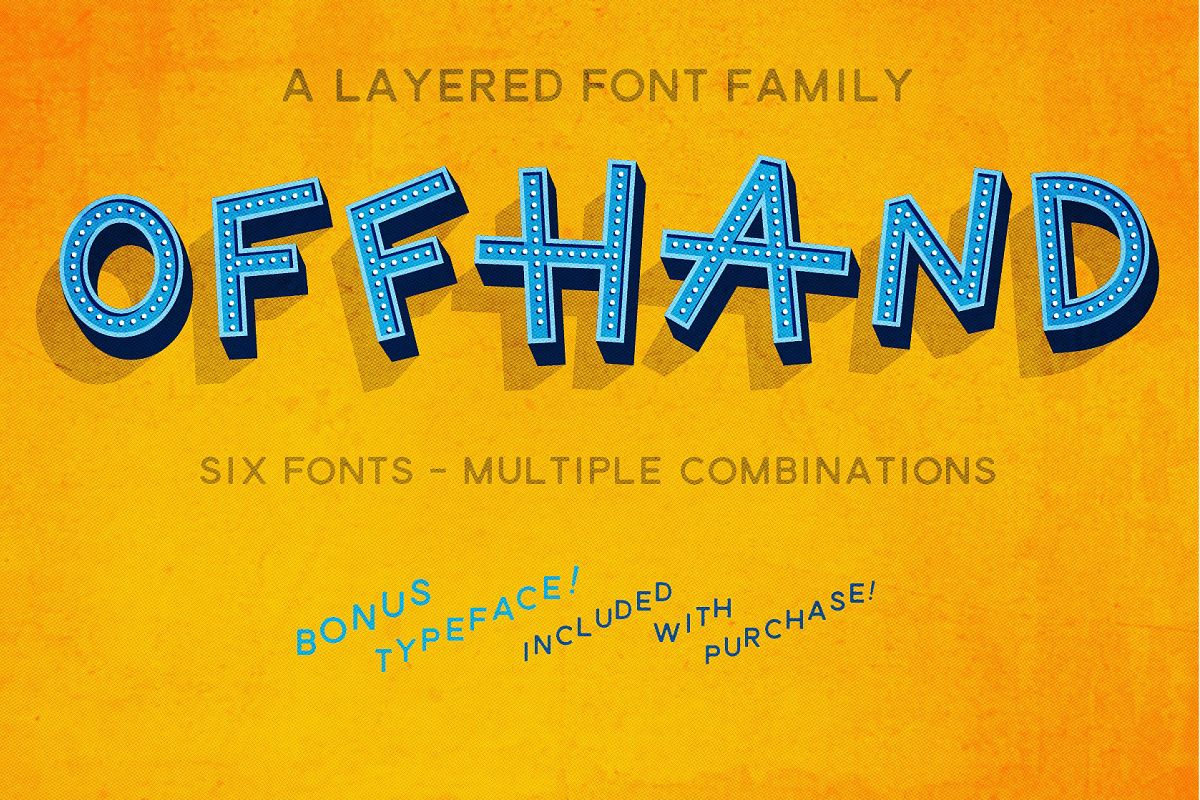
Offhand
Offhand is a new 3D layer based type family with a playful side. It is a contradiction in design. On the one hand it has the rigid structure required of a layered 3D typeface, and on the other is the cheerful nature of its haphazard letterforms.
Endless variations can be created by changing the color on each of the 6 stackable layers. Offhand is all caps & an endless lighthearted typographic puzzle. It's just waiting for the right designer to put all the pieces together.
The complete family pack includes 6 Open Type styles: Dotted InlineInside ShadowInsetMain3DCast Shadow.
Also included with your purchase is Whimsy, the typeface from which the Offhand family was based.